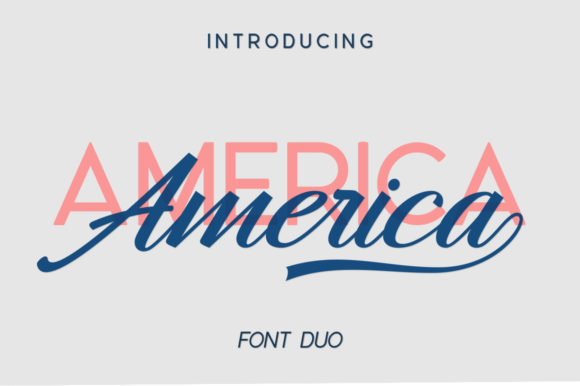
Introducing Hangberd America Duo Font, a mesmerizing collection that will ignite your creativity and captivate your audience. Created by the talented Zane Studio, this font family seamlessly blends the elegance of a sleek sans serif with the allure of unique scripts, offering you the best of both worlds.
With Hangberd America Duo Font, your designs will exude a sense of sophistication and modernity. The sans serif caps are clean, crisp, and perfect for adding a touch of professionalism to your work. Meanwhile, the script fonts bring a sense of artistry, allowing you to infuse your designs with personality and charm.
Imagine your logos, branding materials, and social media posts adorned with the exquisite beauty of Hangberd America Duo Font. Its versatility knows no bounds, effortlessly elevating your projects to new heights. Craft captivating headlines, elegant invitations, or stunning website designs that leave a lasting impression on your audience.
But Hangberd America Duo Font is not just about aesthetics. It is a powerful tool that helps you evoke emotions and connect with your audience on a deeper level. The flowing scripts evoke a sense of warmth and friendliness, while the bold sans serif commands attention and exudes confidence.
Whether you're a seasoned designer or just starting your creative journey, Hangberd America Duo Font is here to inspire and empower you. Its user-friendly nature makes it accessible to all, ensuring that you can effortlessly bring your visions to life. Let your creativity soar as you unlock the endless possibilities that this font collection offers.
In a world where first impressions matter, Hangberd America Duo Font sets the stage for success. Stand out from the crowd, leave an indelible mark, and make your designs unforgettable. Download Hangberd America Duo Font today and discover the power of visual storytelling.